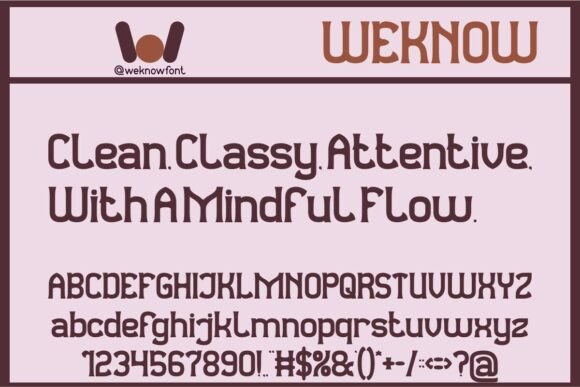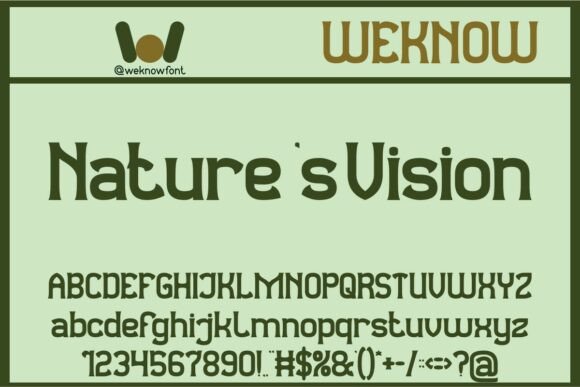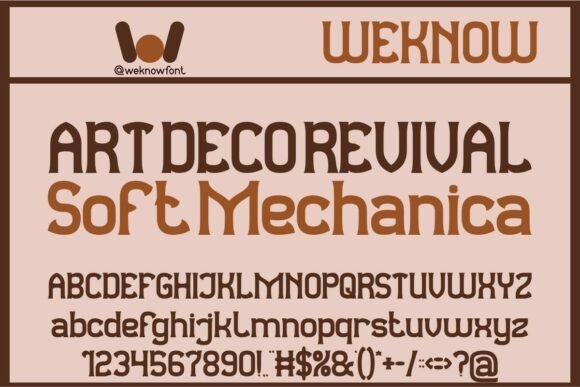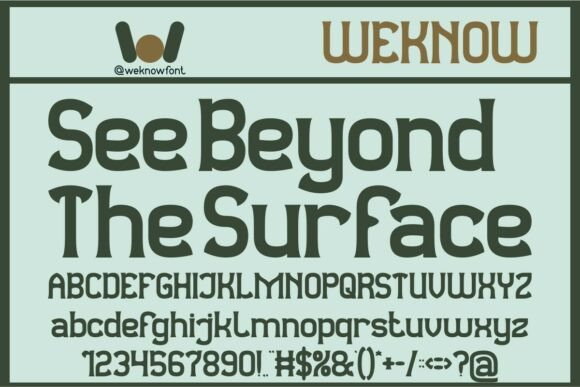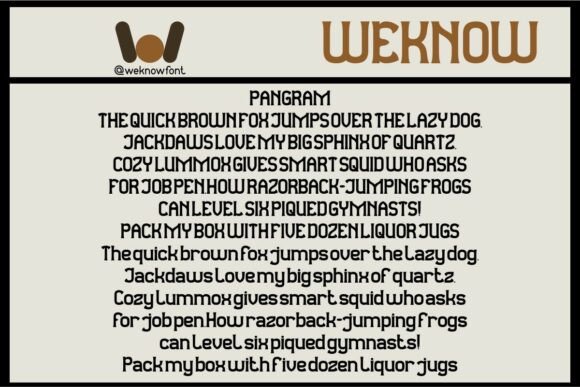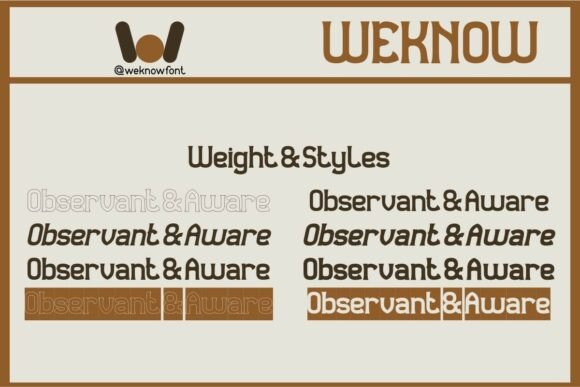
Introduction to Observant and Aware Font
Introducing Observant and Aware—a unique, multifaceted serif font.
A blend of simplicity and eclectic artistic flair, its geometric display harks back to retro aesthetics Universally adaptable, it’s perfect for injecting personality into logos, headlines, and brand identities.
Key Features of Observant and Aware Font
Why Choose Observant and Aware Font?